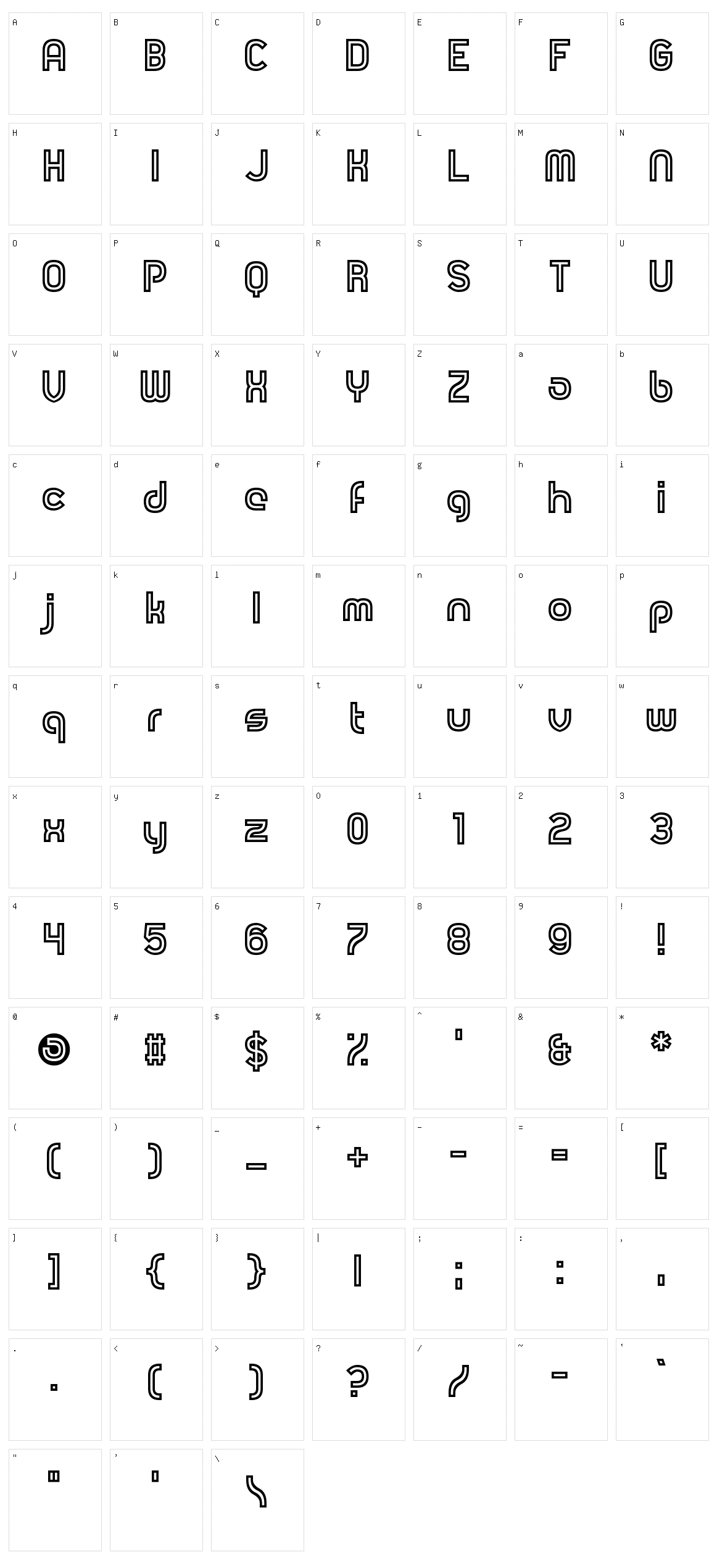
The free font Revolution Will Be Hypnotised is carefully designed by Chequered Ink, showcasing a thoughtful balance of creativity and usability and falls under the Groovy font style. When you download the ZIP file, it contains only 15.8 KB of font files, making it lightweight and quick to download. Please review the license details below to understand permitted usage and distribution rights. If license information is not available, we recommend using this font for personal projects only or contacting the author directly for commercial usage permissions.